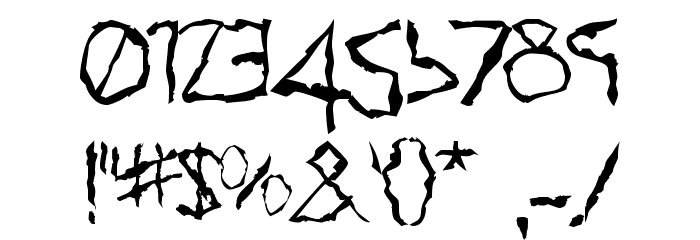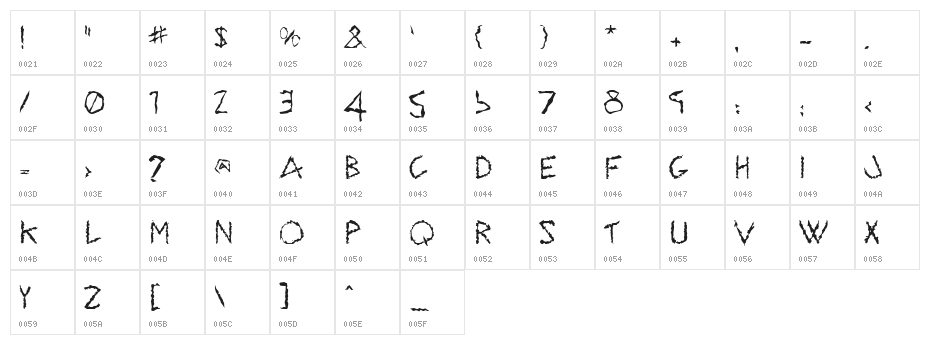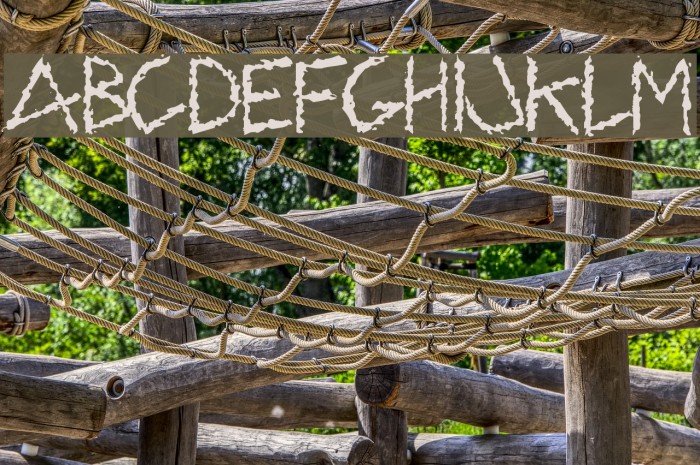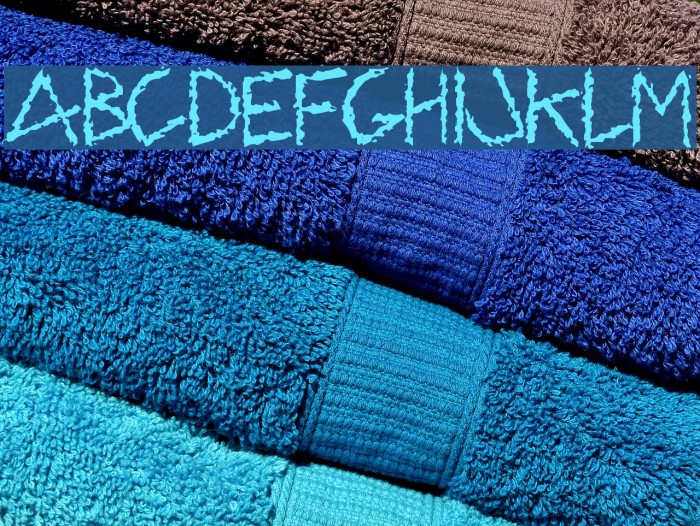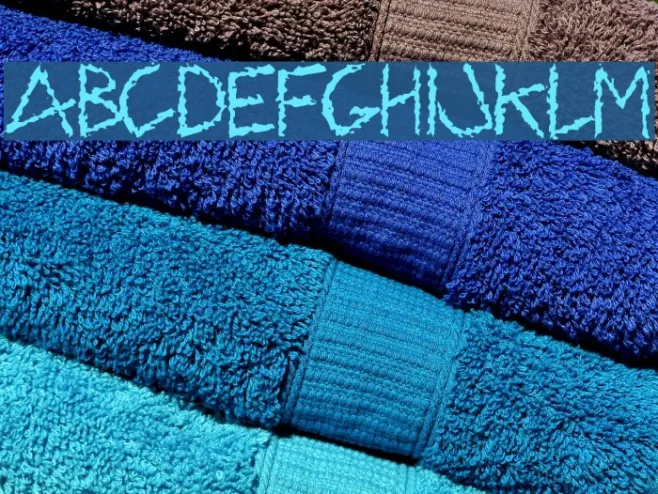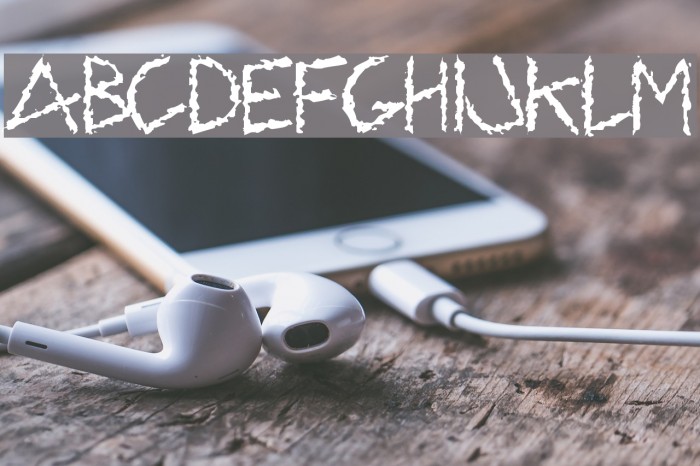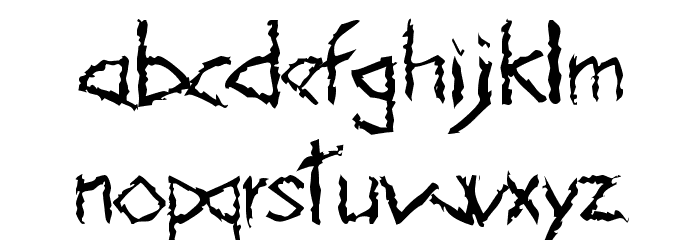
HiSky Font
HiSky Description
This font features a jagged, rough-edged style that gives it a distinctly edgy and rebellious appearance. The characters are irregular and appear as if they have been scratched or carved, adding a sense of raw energy and dynamism. The uppercase and lowercase letters maintain this rugged aesthetic, with each character exhibiting unique variations that enhance the overall chaotic feel. The numerals and special characters follow the same design principles, ensuring consistency throughout the font. This style is particularly eye-catching and can evoke a sense of urgency or intensity.
| Proposed Projects | Ideal for projects requiring a bold, rebellious look, such as music album covers, posters, or branding for extreme sports. |